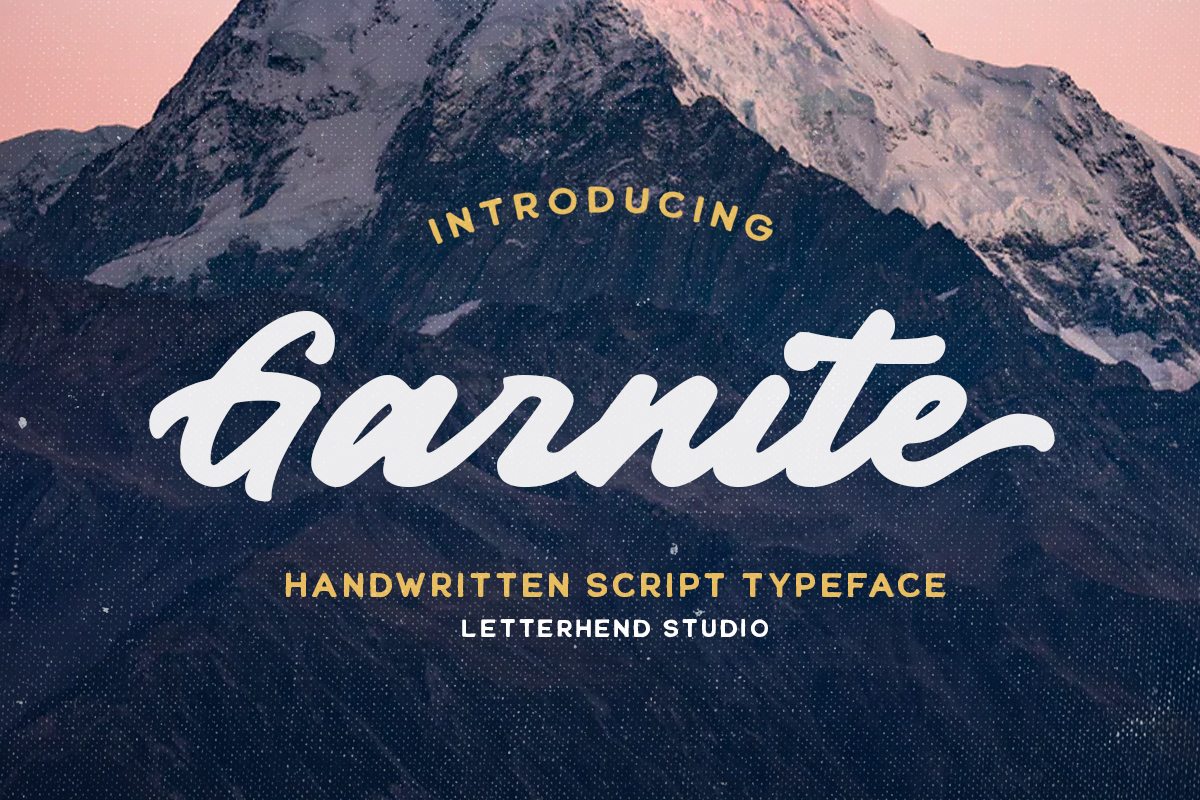
Garnite - Handwritten Script Font
Perfect for invitations, greeting cards, branding, logos, and creative editorial projects.
The Garnite - Handwritten Script Font excites designers with its natural, flowing strokes that capture the charm and authenticity of genuine handwriting.
Font families: Garnite Regular, Garnite Bold, Garnite Italic.
The Garnite - Handwritten Script Font Free Download is a beautifully crafted script typeface featuring smooth curves and a casual, friendly style, ideal for lifestyle brands, personal projects, and artistic designs.
One of the key strengths of Garnite - Handwritten Script Font is its warmth and approachability, making your designs feel personal and inviting while maintaining excellent readability.
In branding, Garnite communicates creativity, friendliness, and authenticity. It pairs wonderfully with soft color palettes, organic shapes, and minimalist layouts to create heartfelt and memorable visuals.
For digital projects, this font enhances social media posts, blog headers, and digital invitations, giving your content a genuine, handwritten flair.